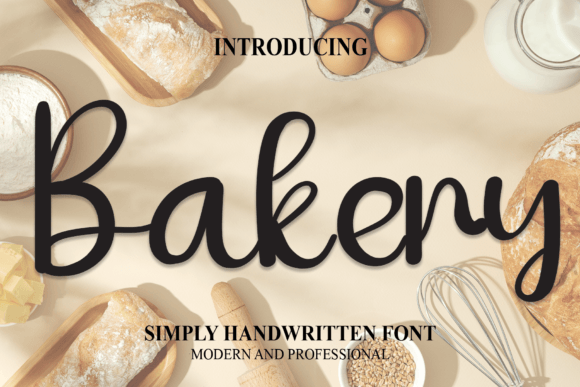
Get Ready to Rise to the Occasion with Bakery Font
Have you ever been working on a project, and the perfect font just slips through your fingers? You know, that one that makes your design pop and leaves a lasting impression? That’s exactly what happened to me when I discovered the Bakery Font – a delightful, handwritten font that’s as charming as it is versatile.
Bakery Font is a go-to choice for designers, crafters, and creatives who want to add a personal touch to their work. Its friendly, approachable style makes it perfect for digital designs, presentations, crafts, and even greeting cards. Whether you’re a seasoned pro or just starting out, Bakery Font is sure to become a staple in your design toolkit.
Bakery Font Key Features
- Character Count: The Bakery Font family includes over 500 glyphs, providing a comprehensive set of characters for various languages and applications.
- Unique Characteristics: The Bakery Font features a unique, hand-drawn design with subtle imperfections, giving it a warm and inviting feel, perfect for bakery and food-related businesses.
- Font Styles: The Bakery Font family includes multiple font styles, including Regular, Bold, Italic, and Bold Italic, offering flexibility and versatility for various design applications.
Bakery Font Review
I recently had the chance to work with Bakery Font, and I must say it’s a solid choice for bakery-related projects or anything that needs a warm, inviting feel. ✨ Here are some things that work well:
- Unique charm: Bakery Font has a distinctive personality that sets it apart from more generic font options.
- Readability: It’s easy to read, even at smaller font sizes.
- Flexibility: Bakery Font is quite specific to its niche (bakery-related projects), so it might not be the best choice for more general use cases.
- Availability of variations: While it comes in a few weights, I found the selection of styles and sizes to be somewhat limited.
Overall, I think Bakery Font is a great choice for the right project. It’s a solid, well-designed font that can add a lot of character to your work. Just be aware of its limitations and make sure it fits your needs.
The Bakery Font is ideal for food-related businesses, bakeries, and restaurants. It’s also great for creating invitations, menus, and other promotional materials. To get the most out of it, use it in combination with high-quality images of baked goods or desserts.
Experiment with different font sizes, colors, and styles to create a visually appealing design.
Alternatives to Bakery Font
Great Vibes is a modern, elegant script font that is perfect for adding a touch of sophistication to designs. It has a softer, more refined feel compared to Bakery Font, making it ideal for use in high-end branding, wedding invitations, and luxury packaging.
Comparison to Bakery Font: While Bakery Font has a more rustic, vintage feel, Great Vibes is sleeker and more polished. Great Vibes is better suited for designs that require a more refined, upscale look.
Carolyna Pro is a beautiful, modern script font that is perfect for use in fashion, beauty, and lifestyle branding. It has a more fluid, dynamic feel compared to Bakery Font, making it ideal for use in social media graphics, advertising, and editorial content.